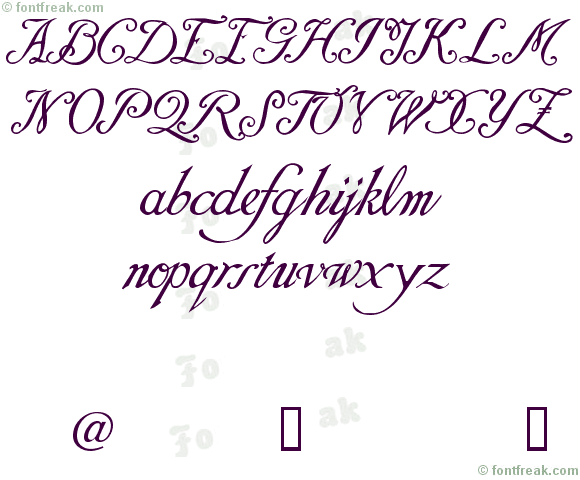
About Daresiel Demo
Daresiel Demo is an elegant script font designed by The Scriptorium, falling under the category of decorative typefaces. Released in 1999, this shareware font offers a blend of sophistication and charm, making it ideal for various creative projects. The font features a graceful stroke weight, with a moderate contrast that gives it a flowing, handwritten appearance. Its character spacing is designed to ensure legibility while maintaining a stylish flair, with delicate loops and swashes that enhance its decorative qualities.
This font is particularly well-suited for wedding invitations, where its romantic curves can set the perfect tone for a special day. Additionally, Daresiel Demo excels in the realm of movie posters, lending an artistic touch that captures attention. It can also elevate restaurant menus, creating an inviting atmosphere that draws diners in, as well as branding materials for small businesses looking to convey a sense of elegance and creativity.
The target audience for Daresiel Demo includes graphic designers seeking to add a unique typeface to their toolkit, small business owners looking to enhance their branding, and content creators who want to make their projects stand out with an artistic flair. The versatility of this font allows it to adapt to various design needs while maintaining its distinctive character.
What sets the Daresiel Demo font apart is its ability to combine functionality with artistry. The delicate features and graceful design make it a standout choice for those looking to create visually appealing content. A Daresiel Demo font free download is available, allowing users to explore its potential for their creative endeavors and integrate a touch of elegance into their designs.